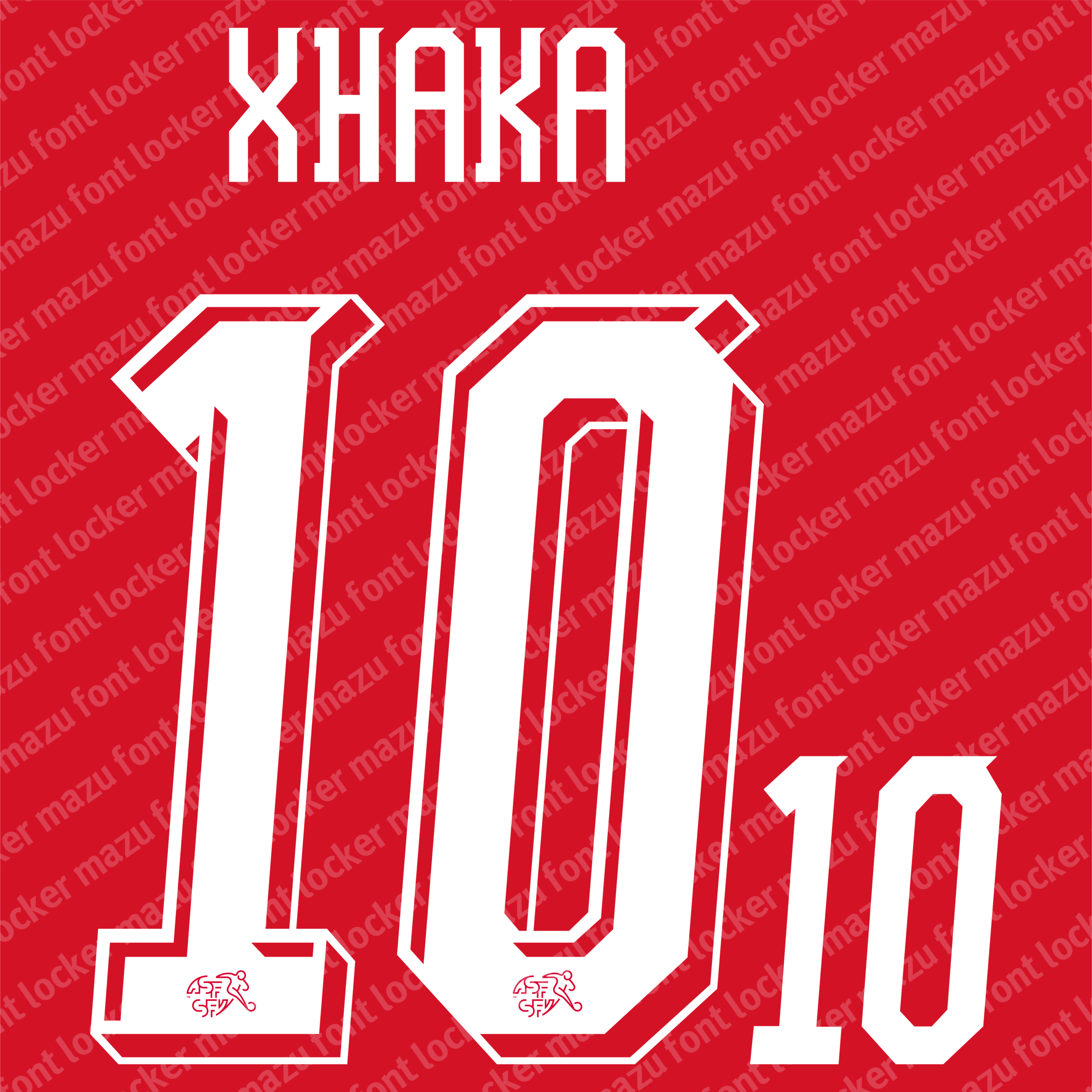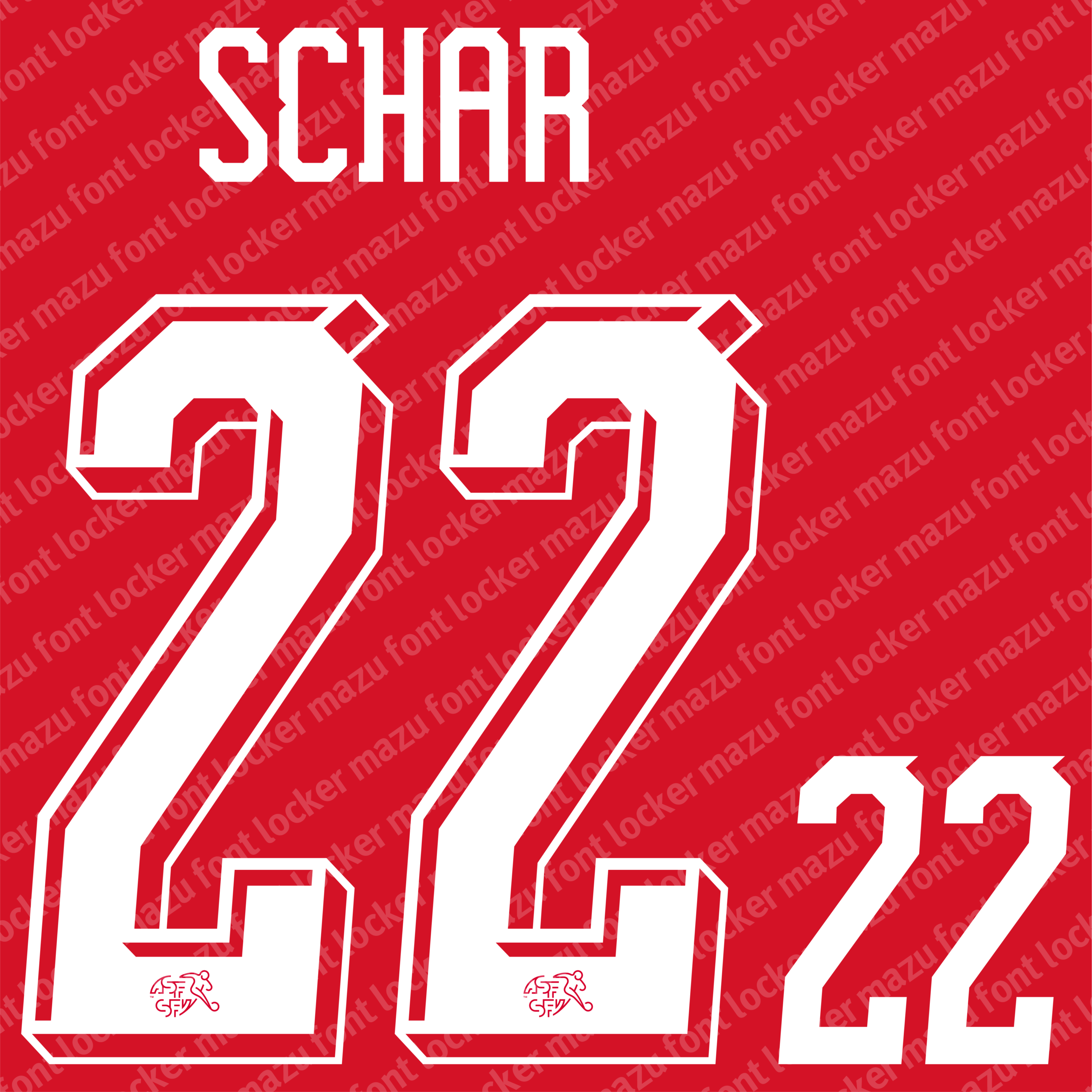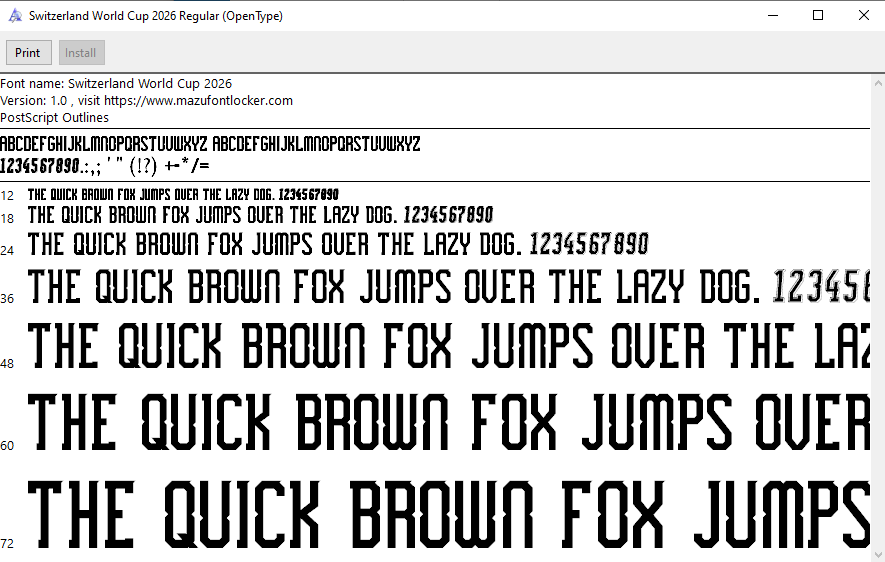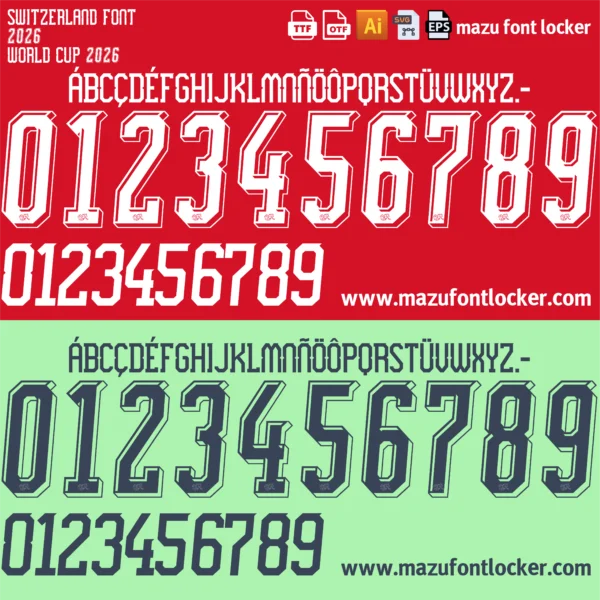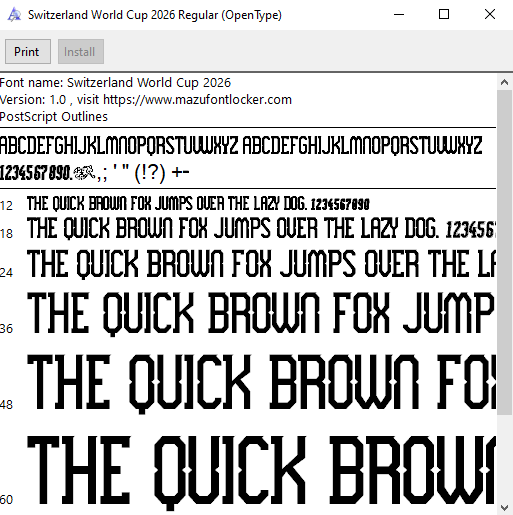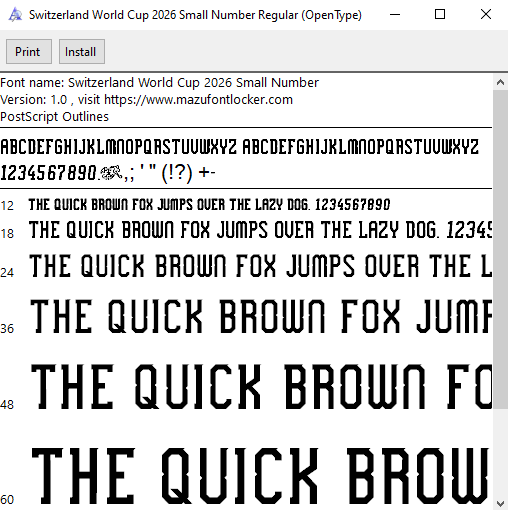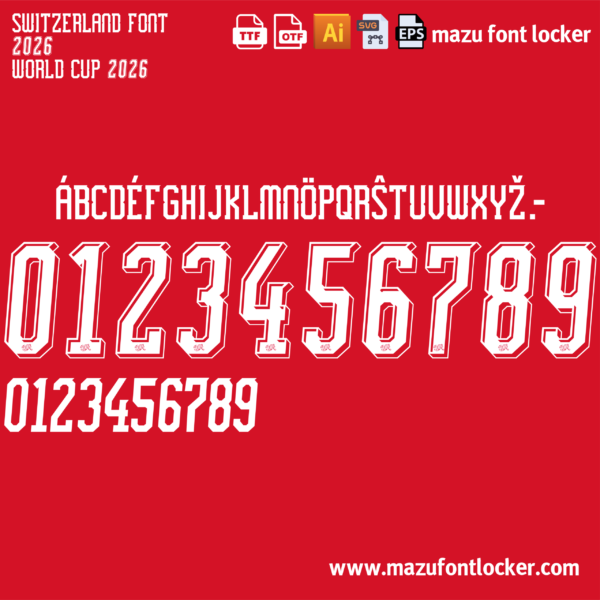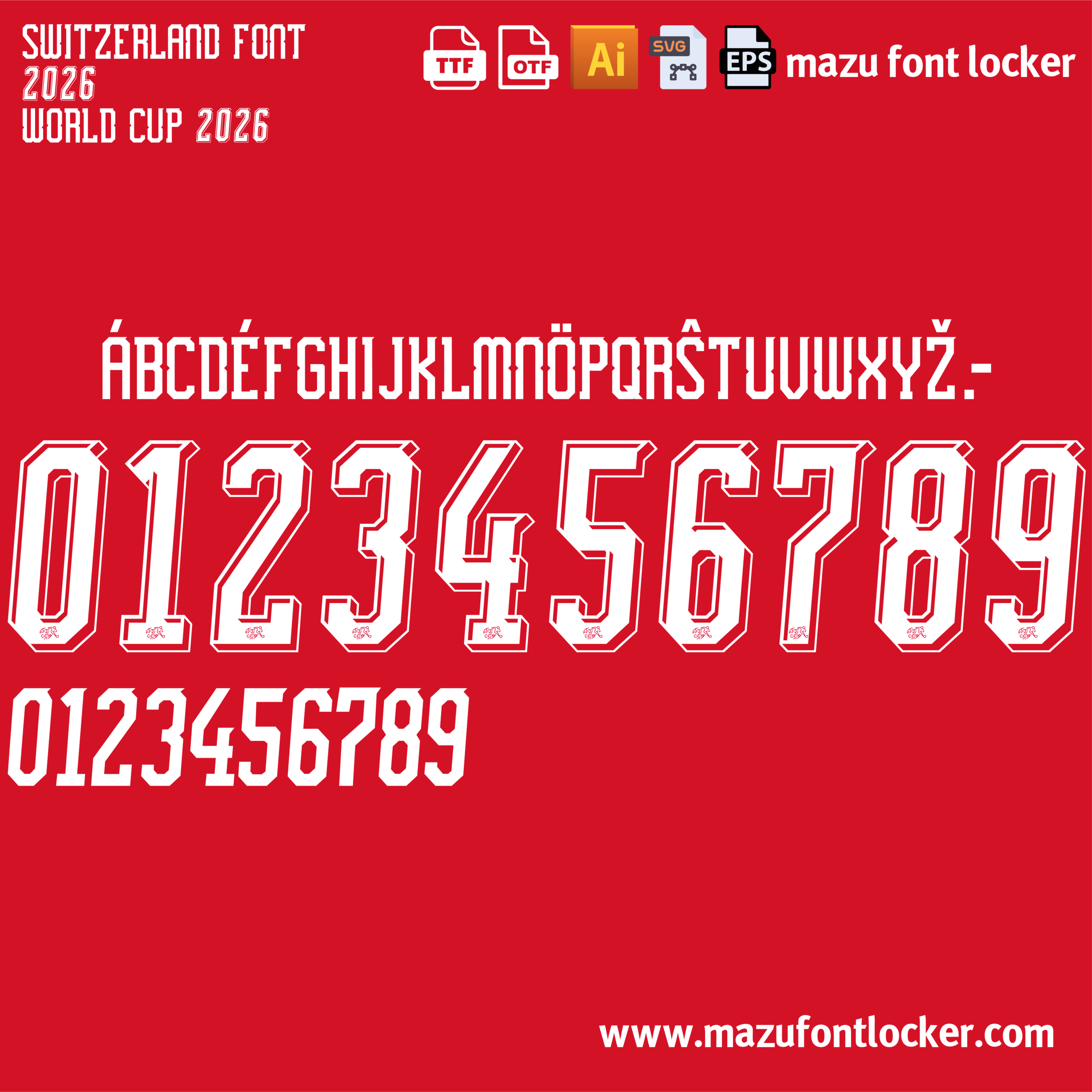
Switzerland World Cup 2026 Font Vector – Triumphant Swiss Eagles Masterpiece
Download the Switzerland World Cup 2026 Font Vector (AI, EPS, SVG, PDF, OTF, TTF) and unleash the bold, powerful, and electrifying match typography that roared across the pitches during Switzerland’s historic World Cup 2026 campaign. This premium font perfectly captures the commanding, iconic lettering that embodies the fearless Swiss spirit — blending precision, resilience, and explosive determination. It delivers unmatched passion, pure Alpine intensity, Swiss red pride, and legendary national fire for premium jersey mockups, football designs, dynamic sports visuals, and epic fan creations.
Switzerland World Cup 2026 Font Vector – Authentic Swiss Typeface
The Switzerland World Cup 2026 Font Vector is a premium typeface that accurately recreates the official match lettering worn by the Swiss national team during the 2026 FIFA World Cup. This high-quality vector font kit captures the clean, modern, and bold typography that represents Switzerland’s distinctive football identity on the global stage.
Designed for professional designers and passionate Switzerland fans, the Switzerland World Cup 2026 Font Vector delivers perfect authenticity for creating realistic jersey mockups, fan merchandise, matchday posters, social media graphics, and World Cup-themed content. It pairs beautifully with the iconic red home kit featuring the famous Swiss Cross.
Why Choose Switzerland World Cup 2026 Font Vector
This font stands out because of its sharp vector precision and strong national identity. Every letter and number is crafted to match the exact style used on the players’ shirts for the 2026 World Cup campaign. Whether you are making realistic kit templates or World Cup celebration content, the Switzerland World Cup 2026 Font Vector gives your designs that authentic Swiss look.
The letterforms in the Switzerland World Cup 2026 Font Vector are tall, bold, and highly legible. The strokes feature strong, clean weight with excellent edge definition that looks powerful on the back of jerseys while maintaining modern elegance and clarity.
• Full uppercase A–Z and numbers 0–9 in authentic Switzerland 2026 style
• Special Swiss Cross crest glyph for accurate shirt number detailing
• Create highly realistic Switzerland World Cup 2026 home and away jersey mockups with accurate lettering
• Design stunning World Cup posters, score graphics, and squad announcements
• Produce custom Switzerland national team merchandise with the 2026 aesthetic
The Switzerland World Cup 2026 Font Vector is an independently designed typeface package. It is carefully crafted to replicate the official shirt lettering style of the 2026 World Cup campaign. This font kit is perfect for creative projects, fan edits, nostalgic jersey designs, and custom football graphics.